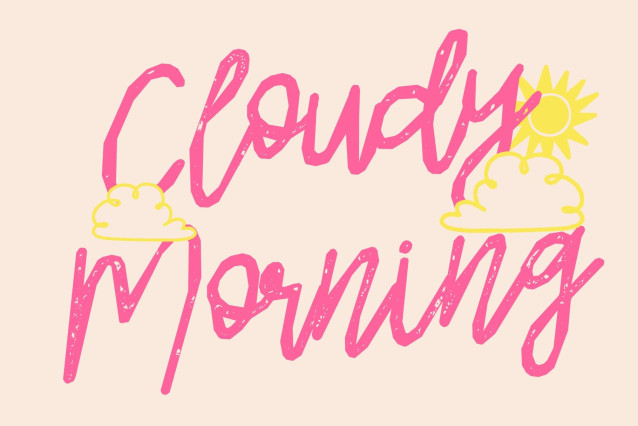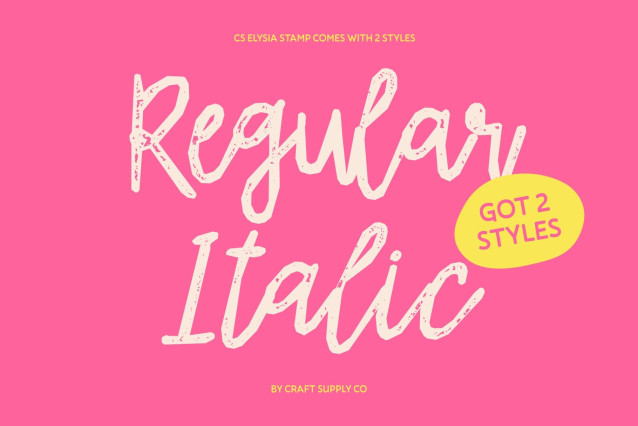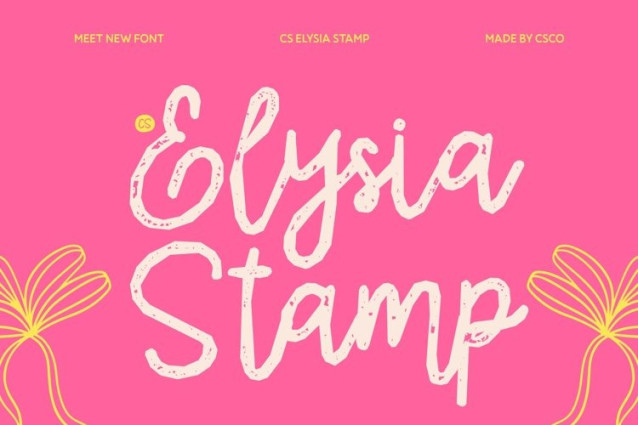
CS Elysia Stamp Font
CS Elysia Stamp – Elegant Script Font: Grace in Every Stroke
Refined Curves and Graceful Flow
This font is a monoline script font that captures the essence of sophistication through its smooth, flowing lines and balanced rhythm. Every stroke is crafted with precision, offering a seamless blend of beauty and legibility. Its graceful curves evoke romance and timeless charm, making it ideal for designs that value elegance and emotional connection.
Effortless Style for Modern Luxury
Designed with a focus on refinement and harmony, this font brings a luxurious touch to any project. The even line weight and soft motion of its characters create a modern yet classic appeal. Whether featured in high-end branding or editorial layouts, it exudes confidence and sophistication without overwhelming the design.
Stamp Texture with Vintage Romance
Enhanced with a delicate stamp effect, this font gains a beautifully aged personality. The textured, ink-pressed appearance introduces subtle imperfections reminiscent of traditional printmaking and handcrafted stationery, adding warmth, authenticity, and an artistic vintage charm to every flowing stroke.